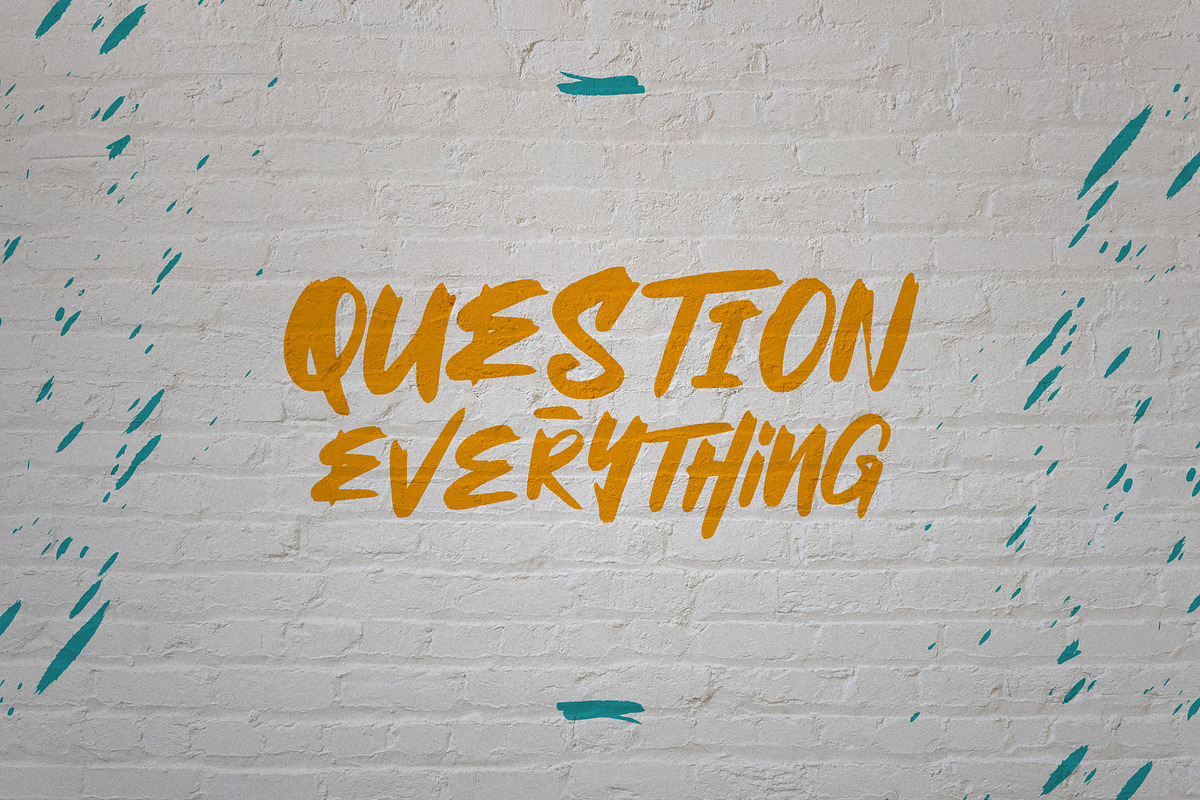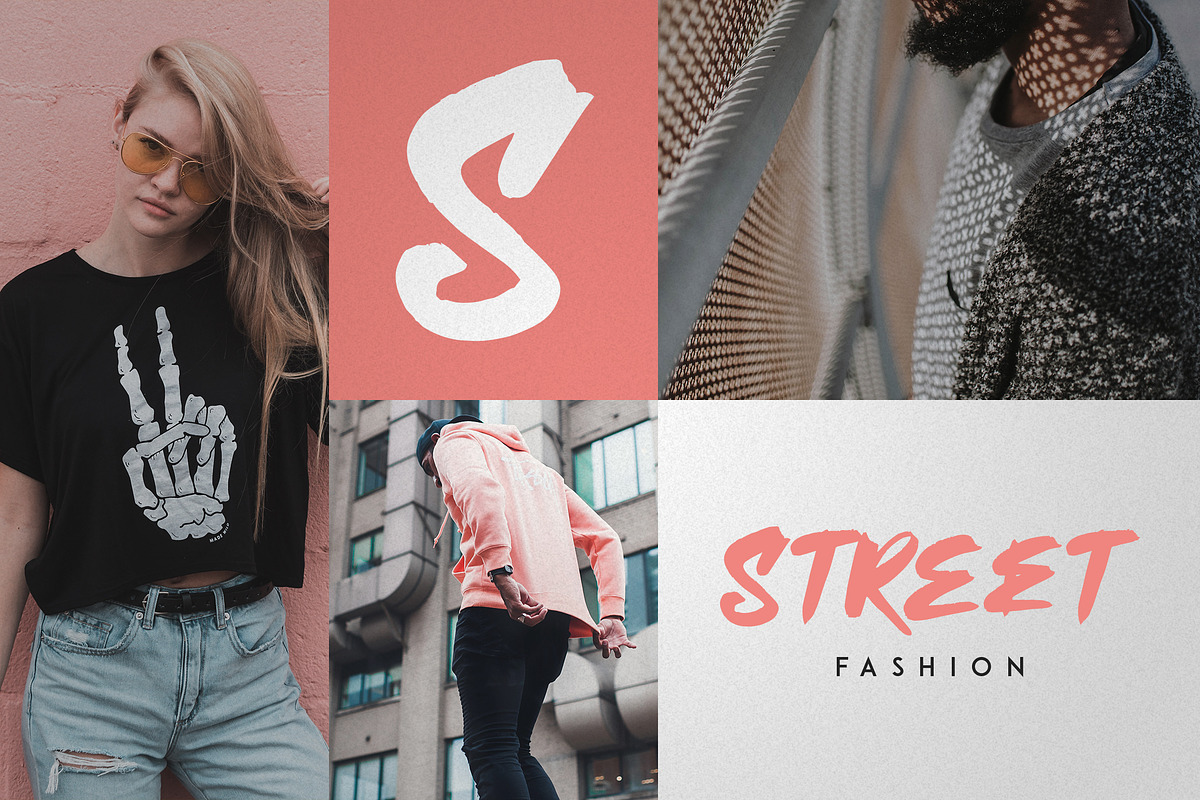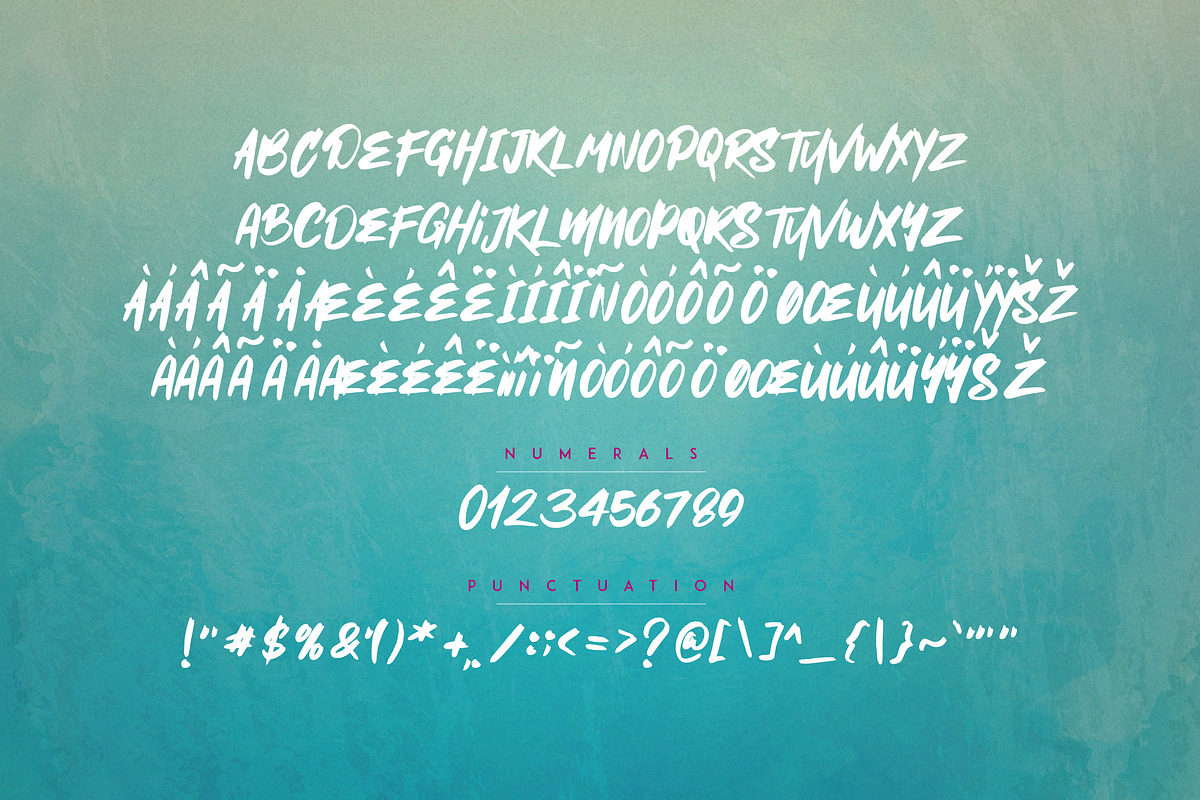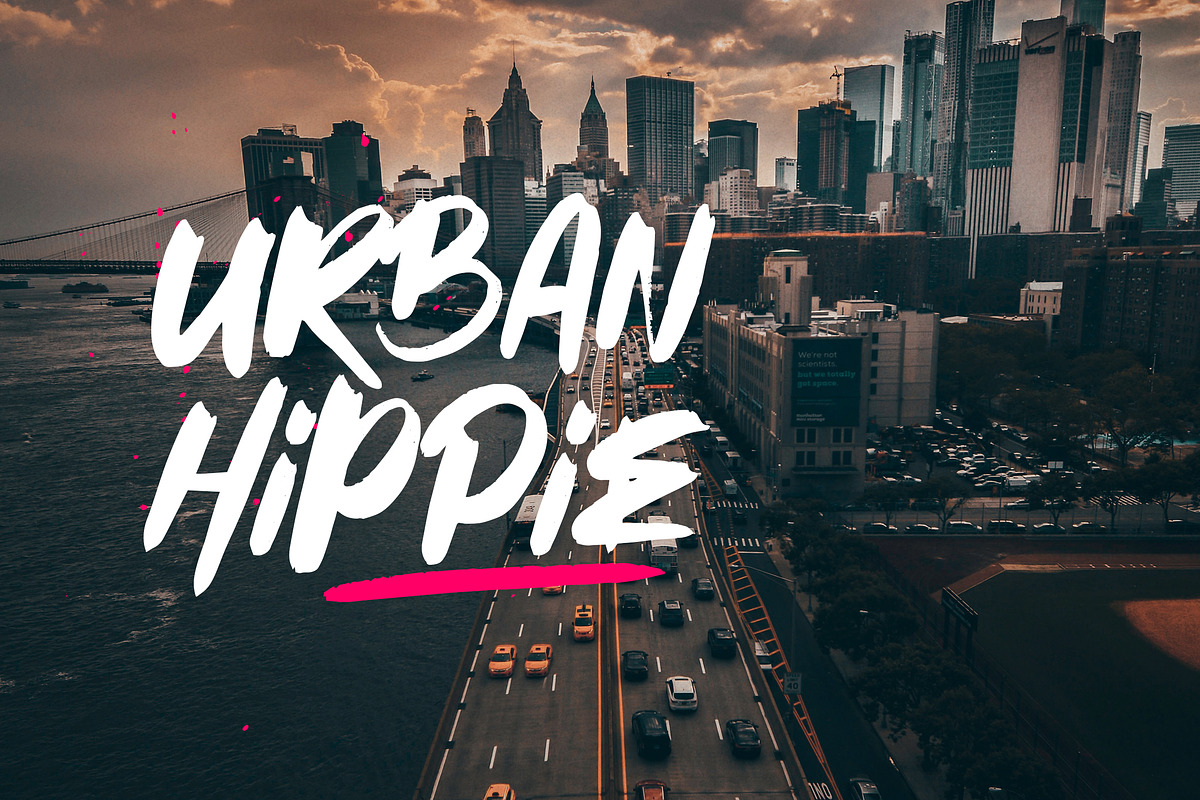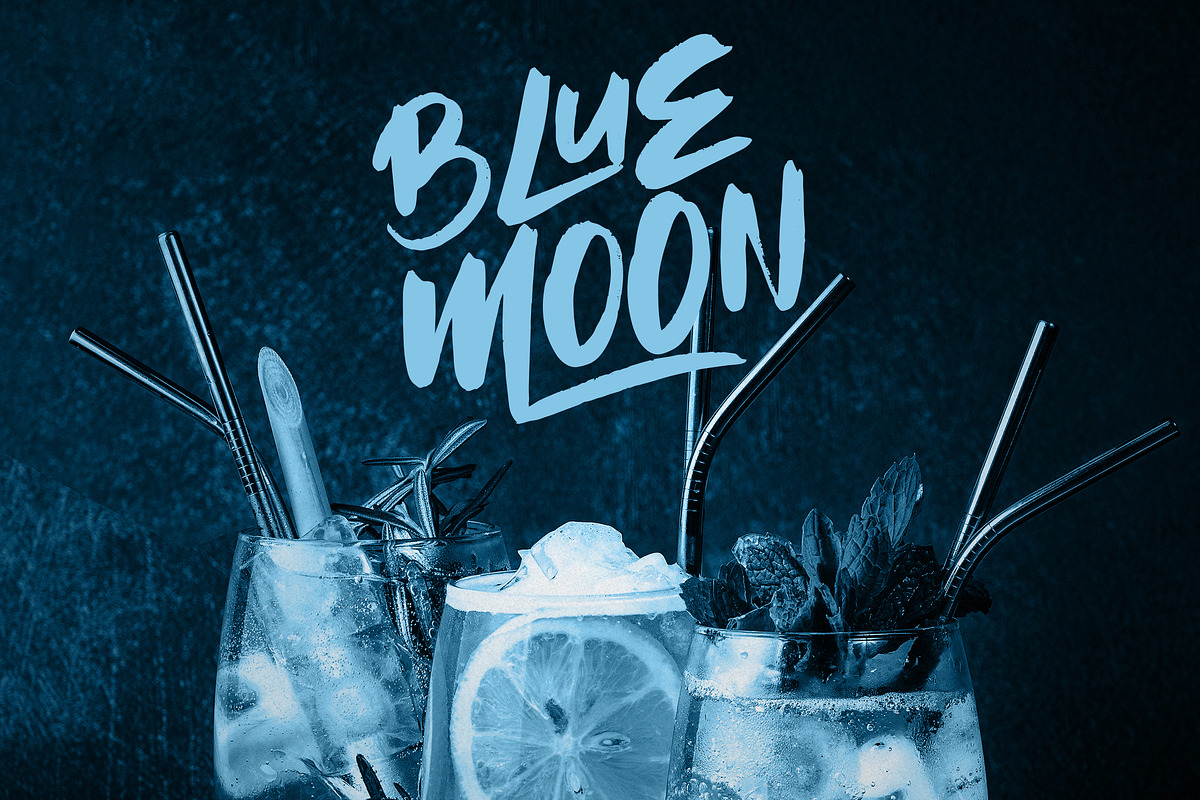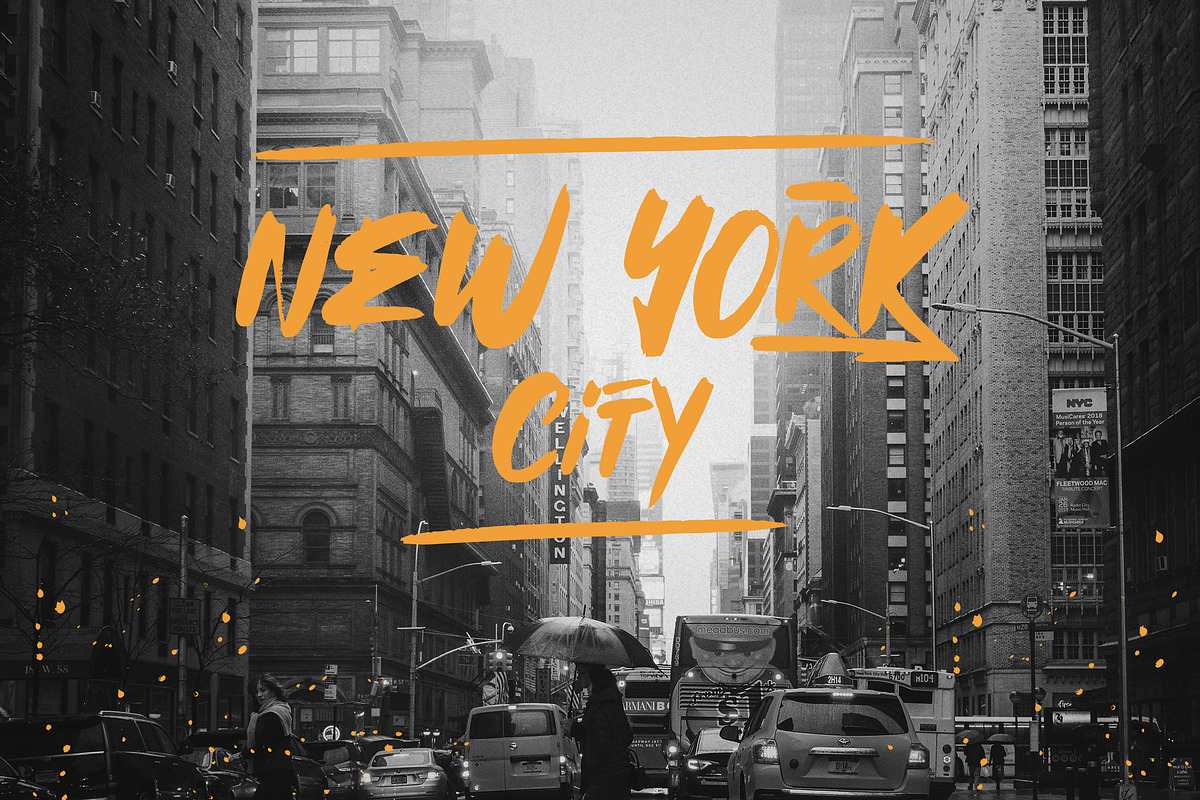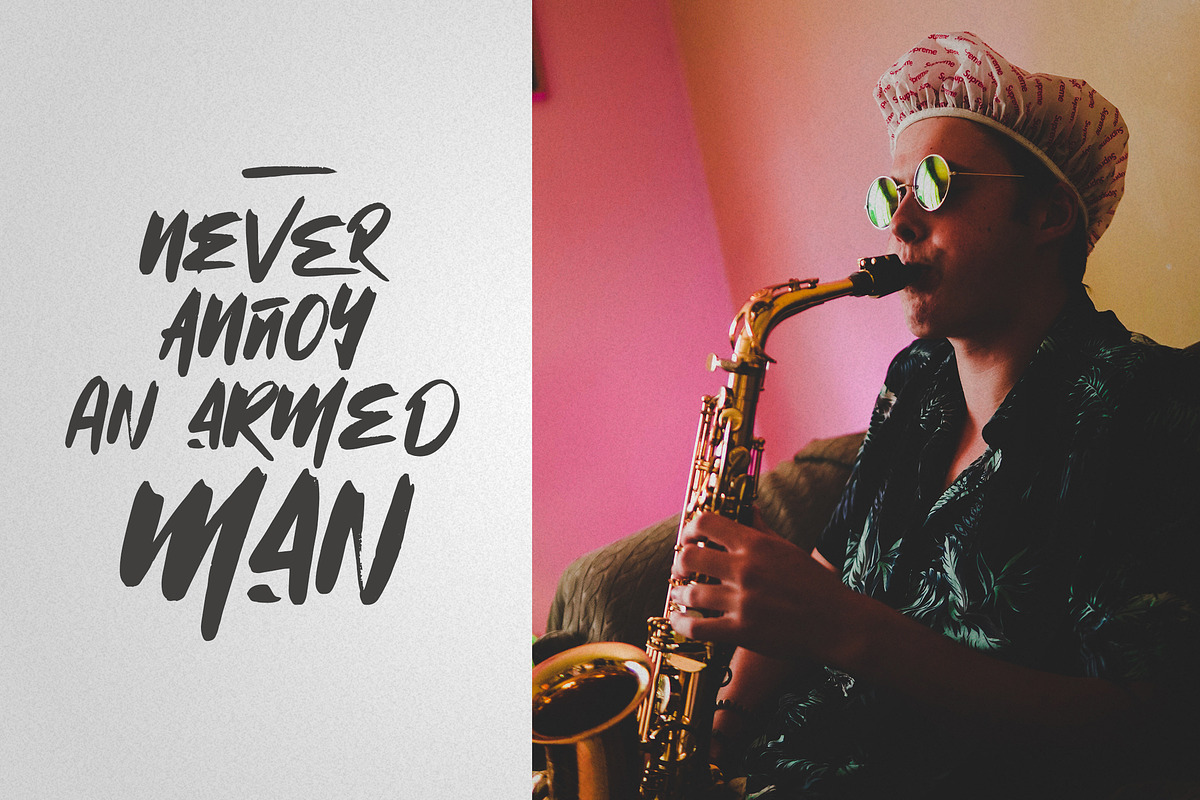
Mischief - Brush font + Extras
Introducing Mischief - Brush font + Extras
Mischief is brush, urban font with alternate glyphs, ligatures, swashes and multilingual support. It's a very versatile font that works great in large and small sizes.
Mischief is perfect for branding projects, home-ware designs, product packaging, magazine headers - or simply as a stylish text overlay to any background image.
Uppercase, lowercase, numeral,punctuation & Symbol